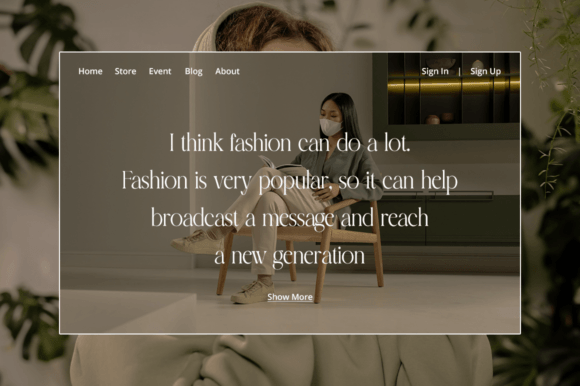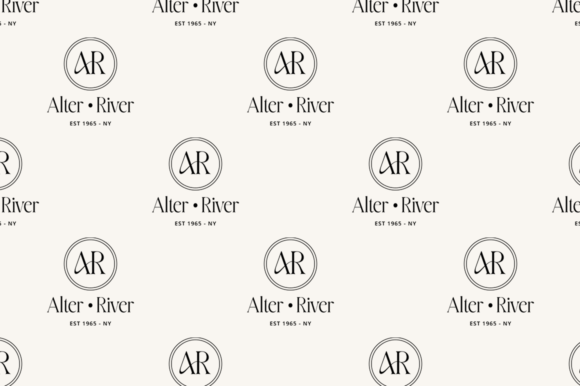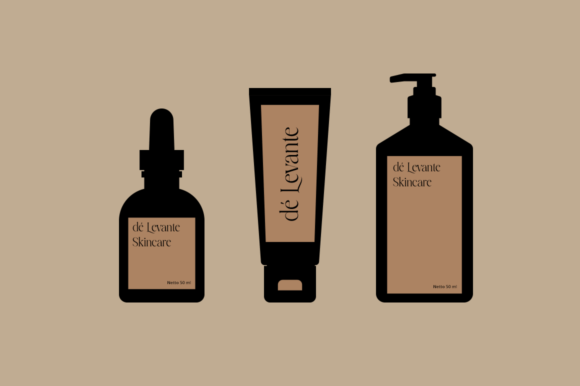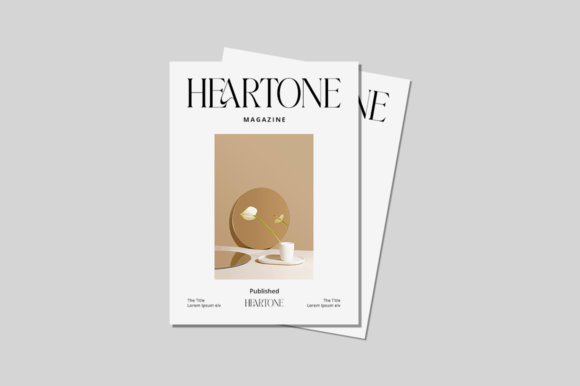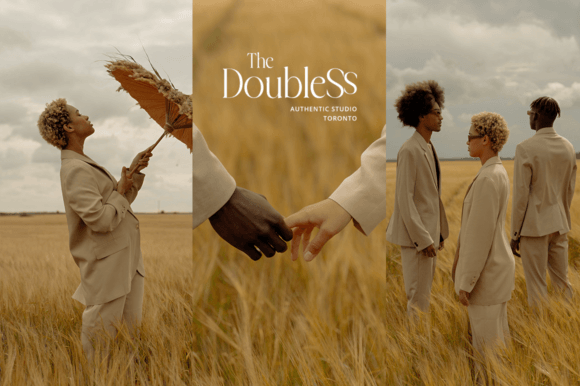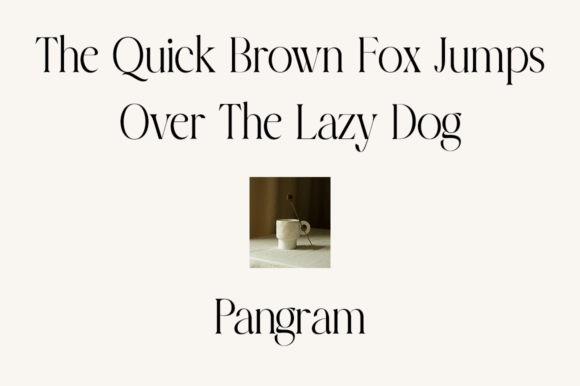
The Designer’s Delight: Uncovering the Elegance of Charlotten Font
I’ll never forget the moment I stumbled upon Charlotten Font while working on a vintage-themed branding project. My client wanted a font that exuded elegance, sophistication, and a touch of nostalgia. I had spent hours scouring through font libraries, but nothing seemed to fit the bill. That was until I discovered Charlotten – a distinct, elegant, and authentic serif font that instantly captured the essence of my client’s vision.
- ✅ Elegant and authentic serif design that adds a touch of sophistication to any project
- ✅ Highly versatile and suitable for a wide range of creative projects, from branding and advertising to crafting and DIY
- ✅ Masterfully designed to bring creative ideas to life
- ⚠️ Some users may find the font’s classic feel a bit limiting for very modern or avant-garde designs
The Story Behind Charlotten Font: A Designer Inspiration
Charlotten Font was designed with the goal of creating a timeless, elegant serif font that would bring a touch of sophistication to any project. Inspired by classic typography and refined design principles, Charlotten is the perfect choice for designers, crafters, and creative hobbyists looking for a font that exudes elegance and refinement.
Q: Is Charlotten Font suitable for body text and long-form content?
A: While Charlotten Font is elegant and refined, it may not be the best choice for body text and long-form content. Consider using a font like Merriweather or Georgia for these types of projects.